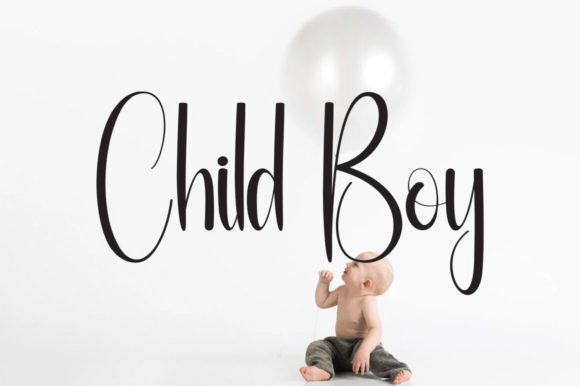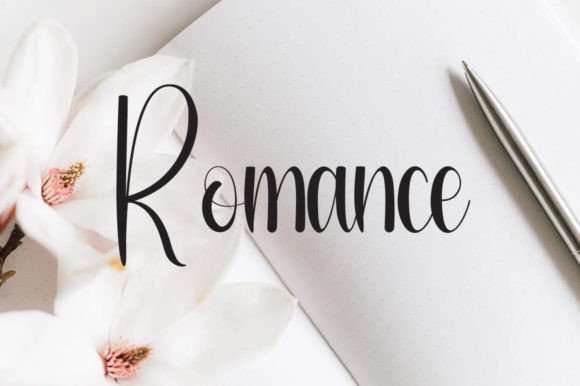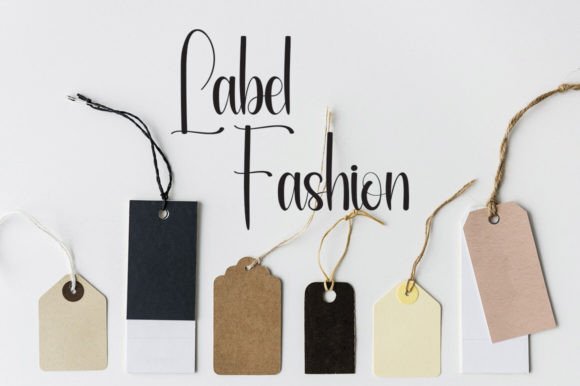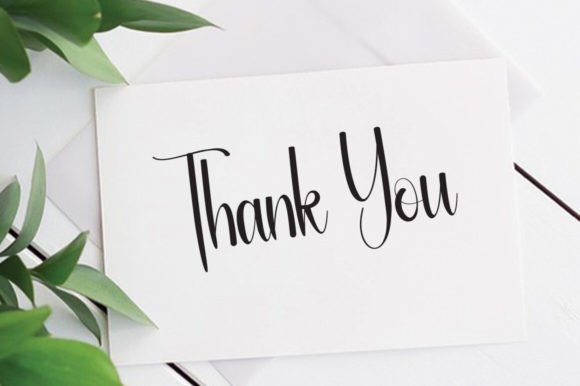
Introducing Handmade Signature Font: A Sweet and Cursive Handwritten Delight
Are you a designer or crafter looking for a font that adds a touch of warmth and personality to your projects? Look no further than the Handmade Signature font! This beautiful, cursive handwritten font is perfect for a variety of design ideas and is sure to bring a joyful and romantic touch to each of your creations.
What is Handmade Signature Font?
Handmade Signature is a sweet and cursive handwritten font that is designed to mimic the look and feel of handwritten script. With its gentle curves and flowing lines, this font is perfect for adding a personal touch to your designs. Whether you’re working on a logo, invitation, or social media graphic, Handmade Signature is sure to make your project stand out.
Characteristics of Handmade Signature Font
So, what makes Handmade Signature font so special? Here are just a few of its key characteristics:
- Sweet and Cursive: Handmade Signature is a cursive handwritten font with a sweet and feminine touch. Its flowing lines and gentle curves make it perfect for adding a touch of elegance to your designs.
- Handwritten Look: This font is designed to mimic the look and feel of handwritten script. With its subtle imperfections and variations in line width, Handmade Signature has a warm and personal feel that’s perfect for a variety of design applications.
- Versatile: Handmade Signature is a versatile font that can be used for a wide range of design ideas. Whether you’re working on a logo, invitation, or social media graphic, this font is sure to add a touch of personality and style to your project.
How to Use Handmade Signature Font
So, how can you use Handmade Signature font in your designs? Here are a few ideas to get you started:
- Invitations: Add a touch of elegance and sophistication to your invitations with Handmade Signature font. Perfect for weddings, baby showers, and other special occasions.
- Logos: Use Handmade Signature font to create a unique and memorable logo for your business or brand. Its sweet and cursive design makes it perfect for businesses that want to convey a sense of warmth and personality.
- Social Media Graphics: Add a touch of personality to your social media graphics with Handmade Signature font. Perfect for creating eye-catching headlines and titles that will help your content stand out.
- Crafting Projects: If you’re a crafter, Handmade Signature font is a great addition to your design toolkit. Use it to create beautiful and unique titles, headings, and labels for your crafting projects.
Benefits of Using Handmade Signature Font
So, why should you choose Handmade Signature font for your designs? Here are just a few of the benefits of using this beautiful font:
- Unique and Memorable: Handmade Signature font is a unique and memorable font that will help your designs stand out from the crowd.
- Emotional Connection: With its warm and personal feel, Handmade Signature font is perfect for creating an emotional connection with your audience.
- Versatile: This font is versatile and can be used for a wide range of design applications, from logos and invitations to social media graphics and crafting projects.
- Elegant and Sophisticated: Handmade Signature font adds a touch of elegance and sophistication to your designs, making it perfect for special occasions and high-end brands.
In conclusion, Handmade Signature font is a beautiful and versatile font that is perfect for designers and crafters looking to add a touch of warmth and personality to their projects. With its sweet and cursive design, handwritten look, and versatile applications, this font is sure to bring a joyful and romantic touch to each of your creations. So why not give it a try and see the difference it can make in your designs?